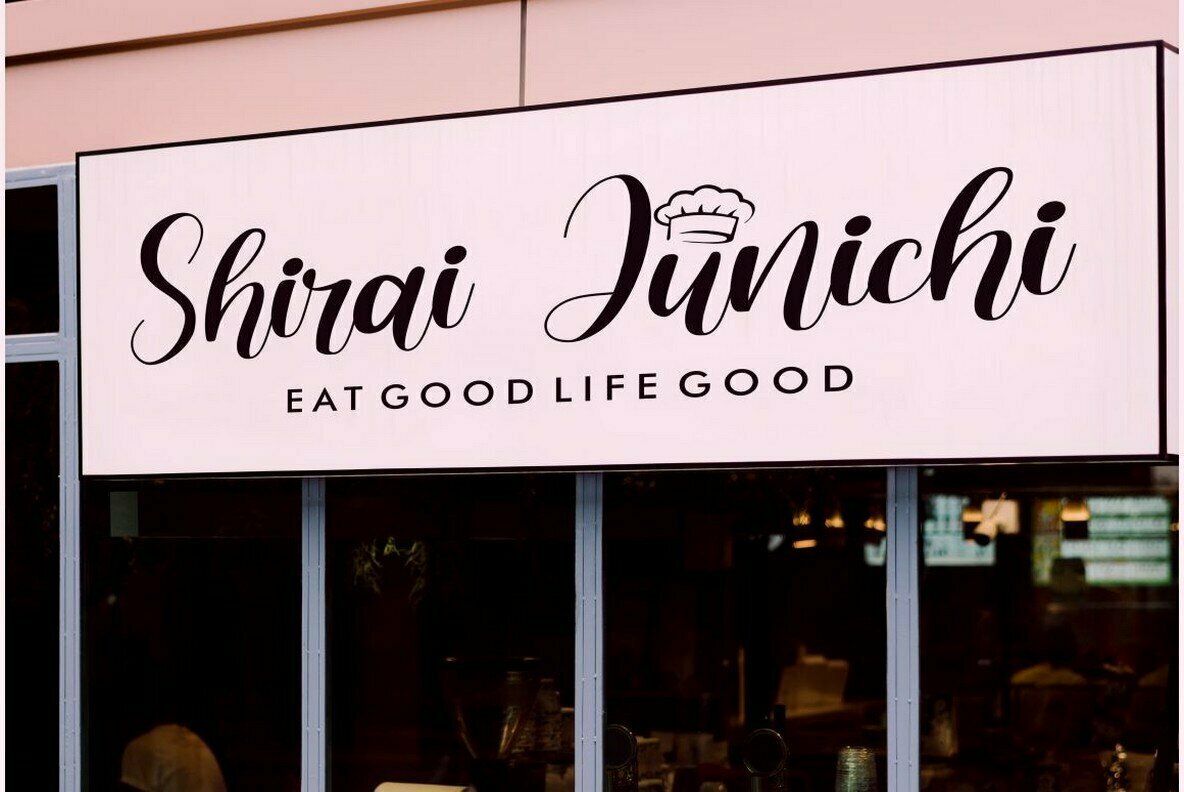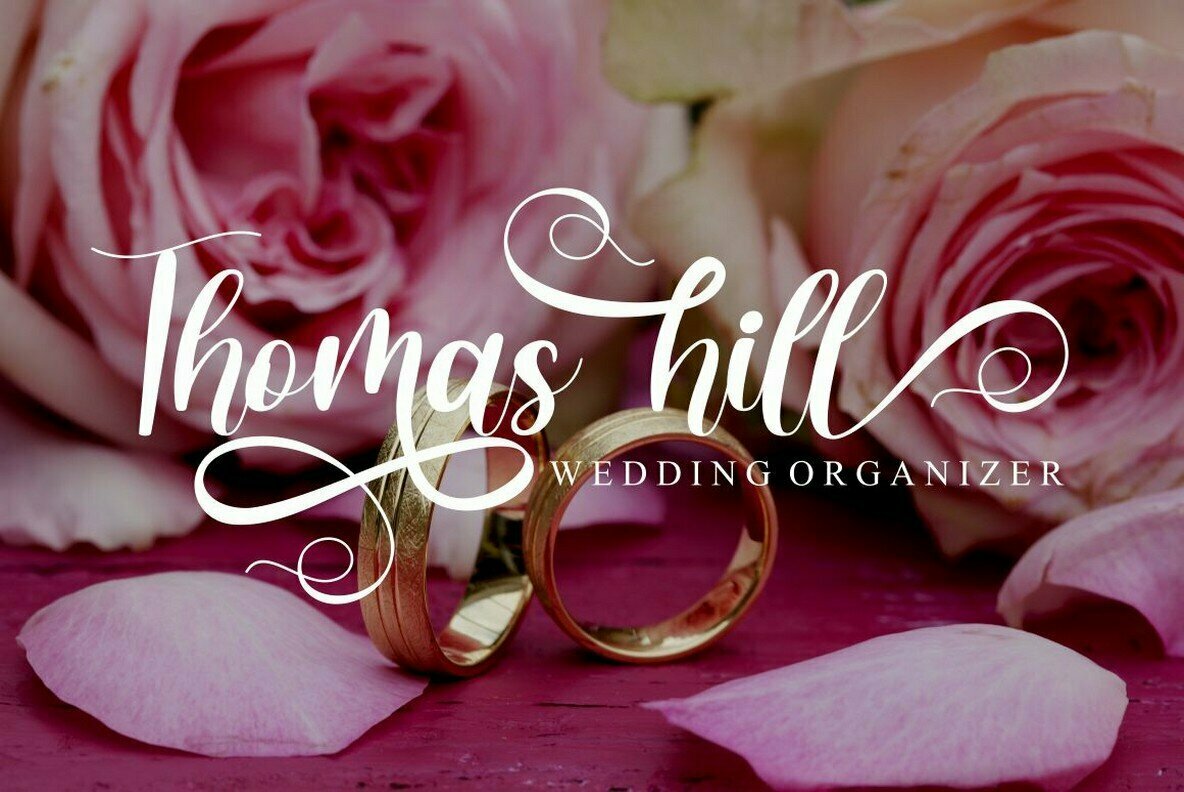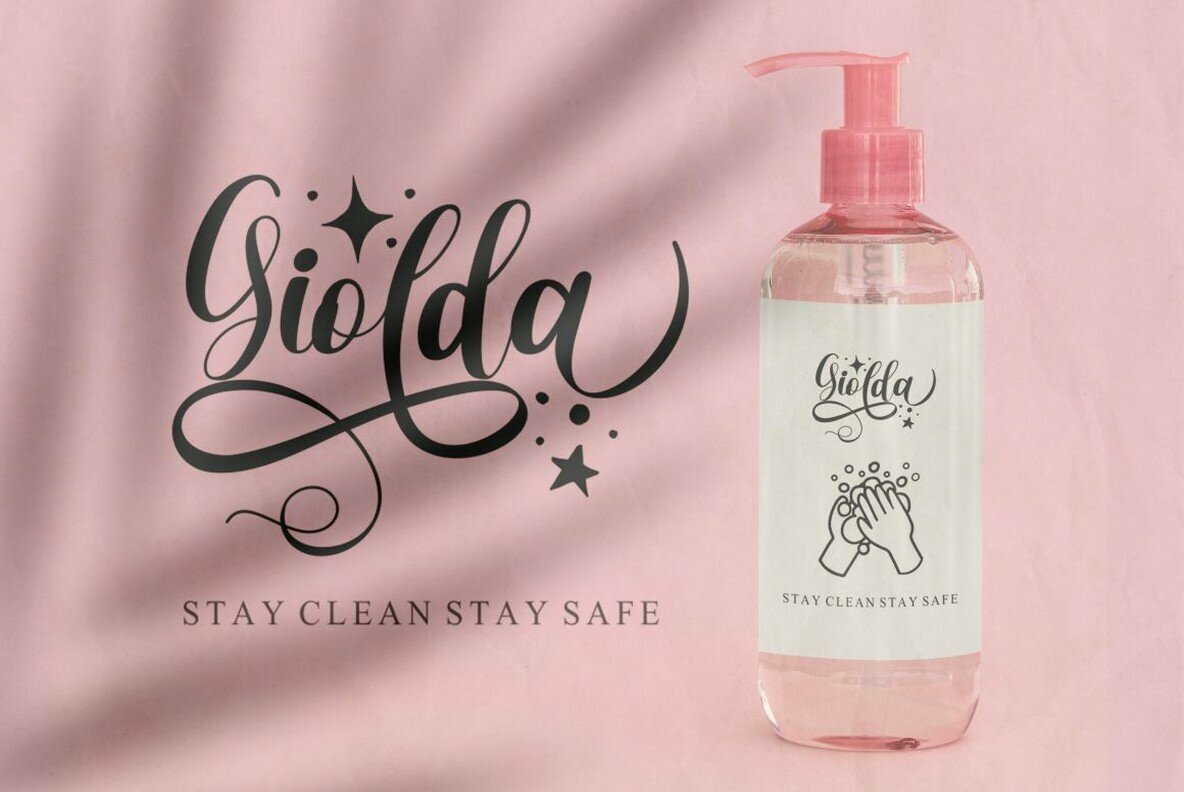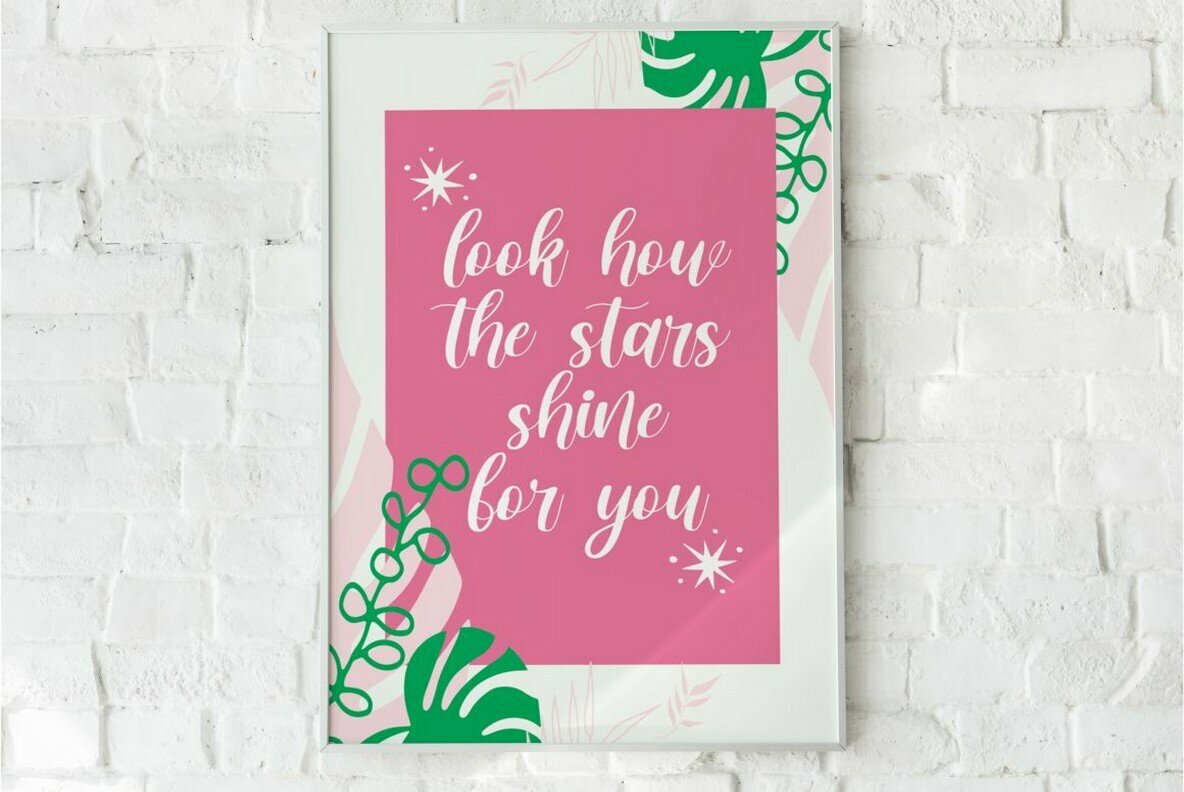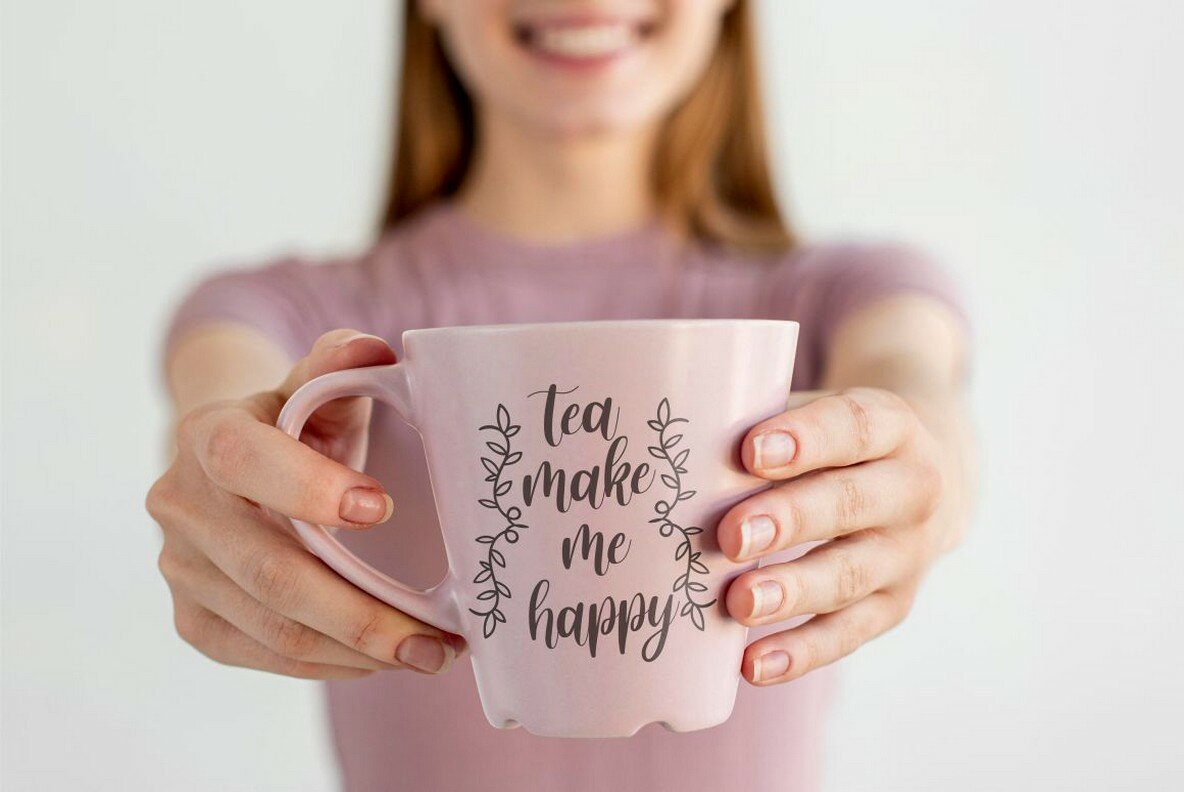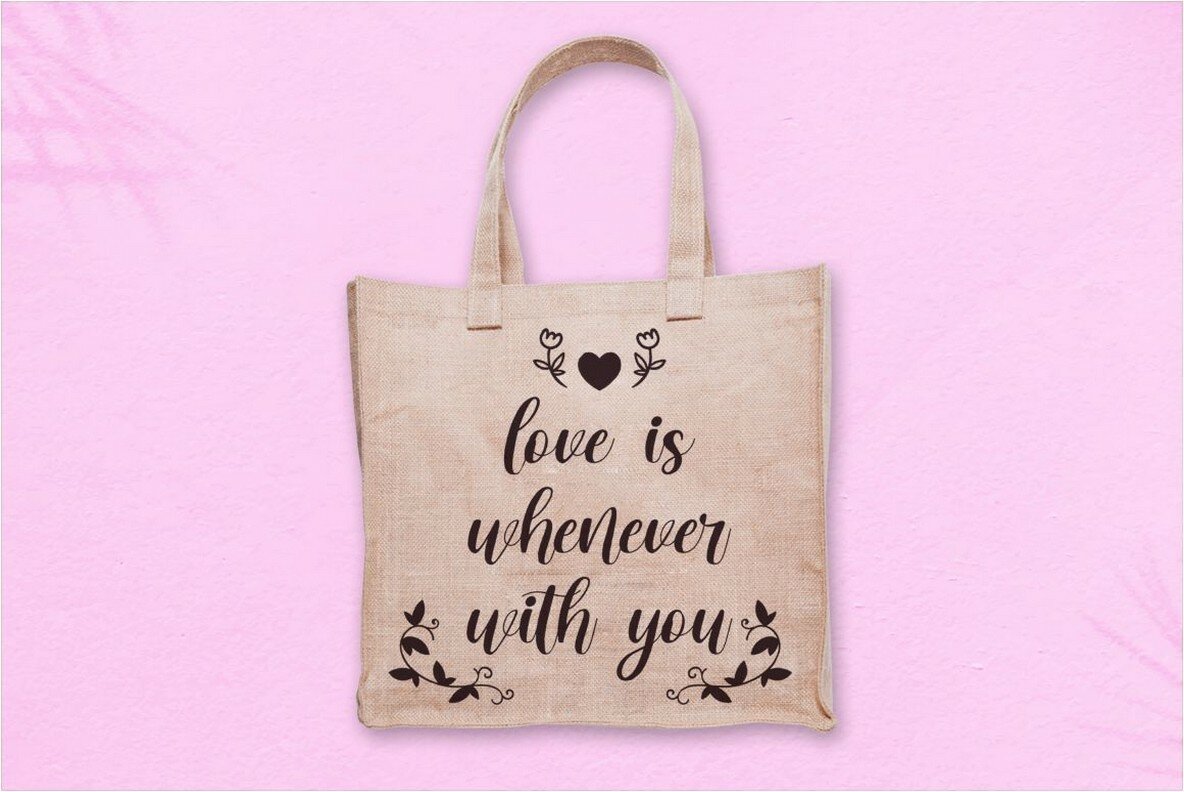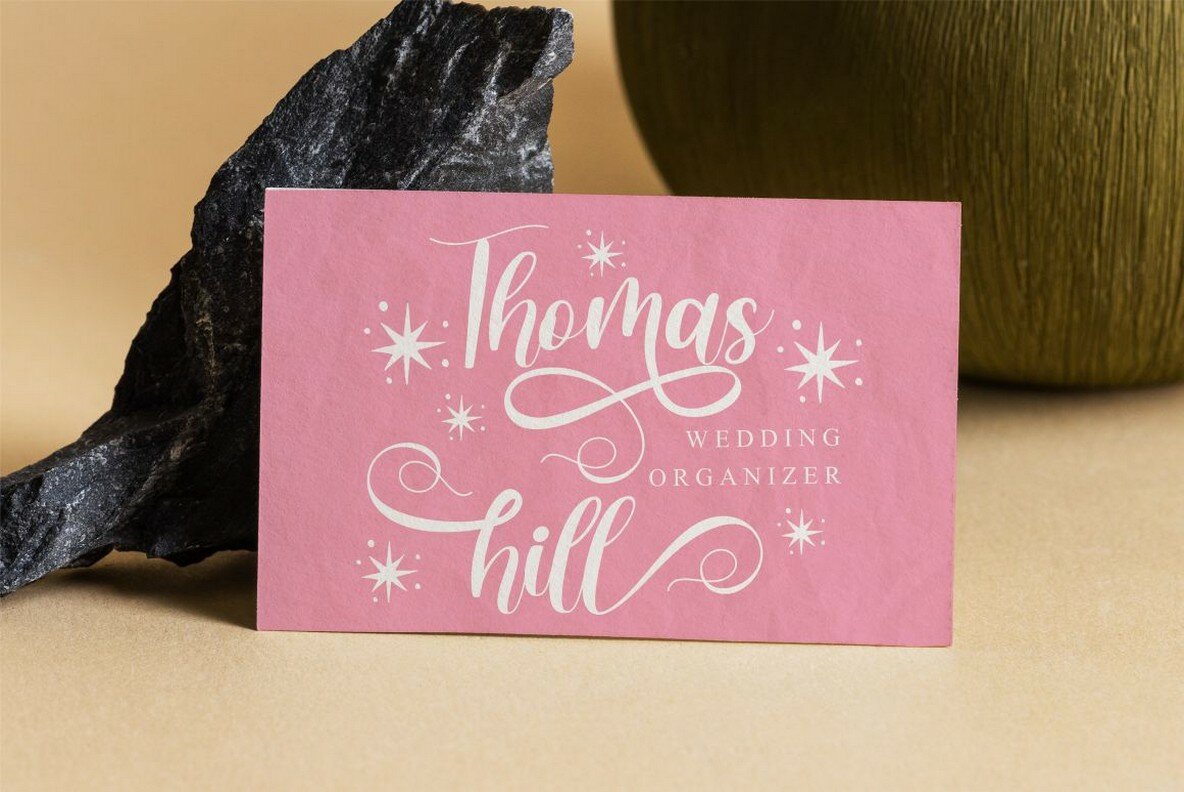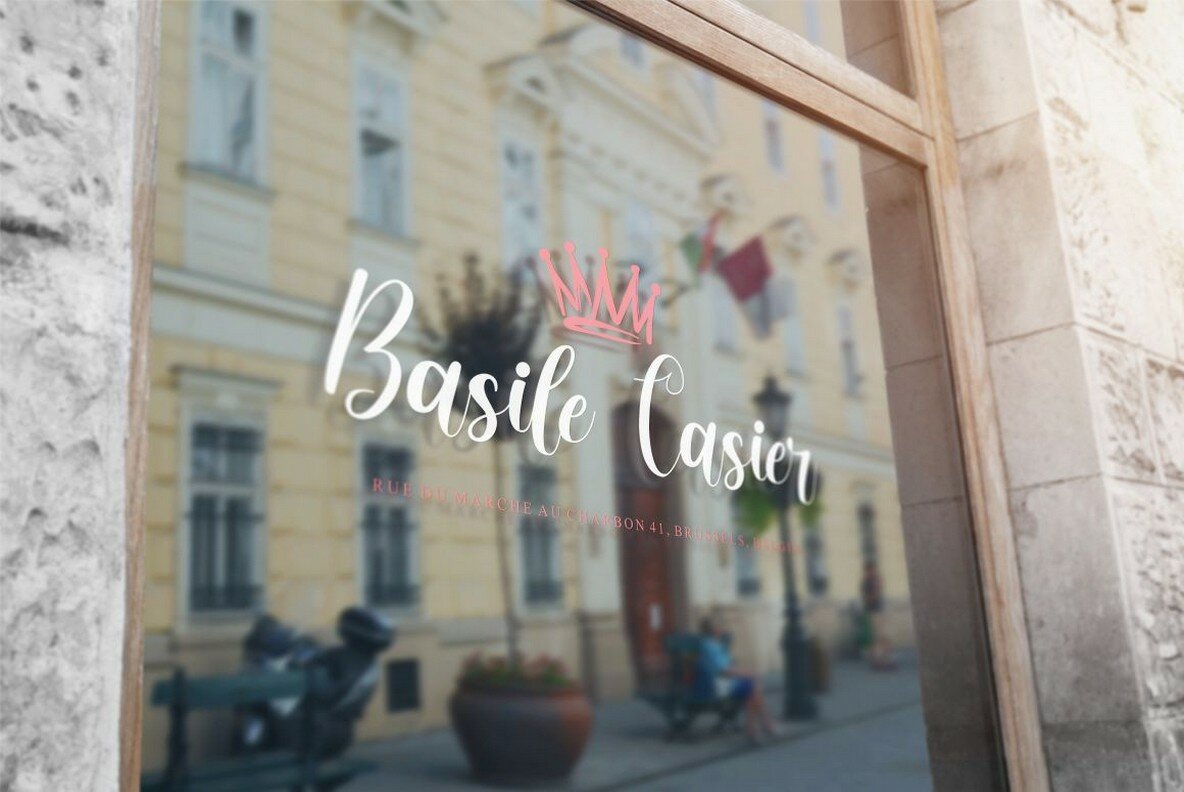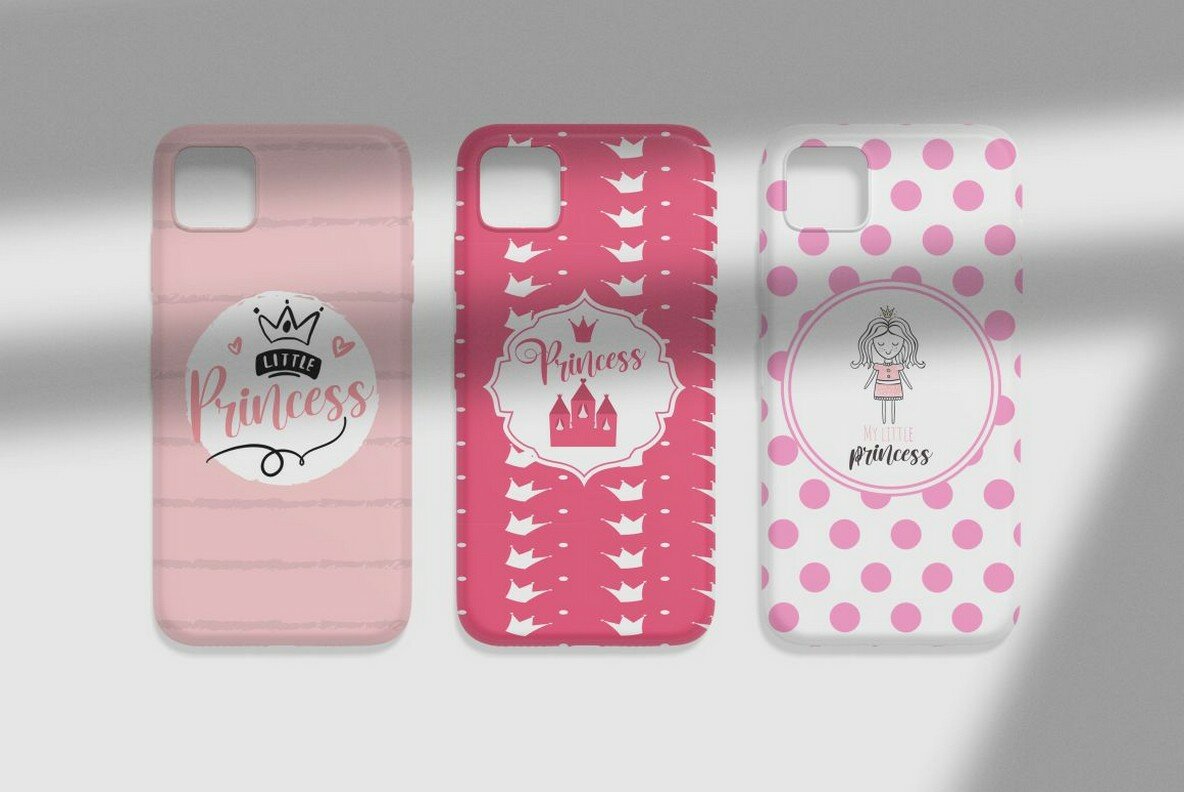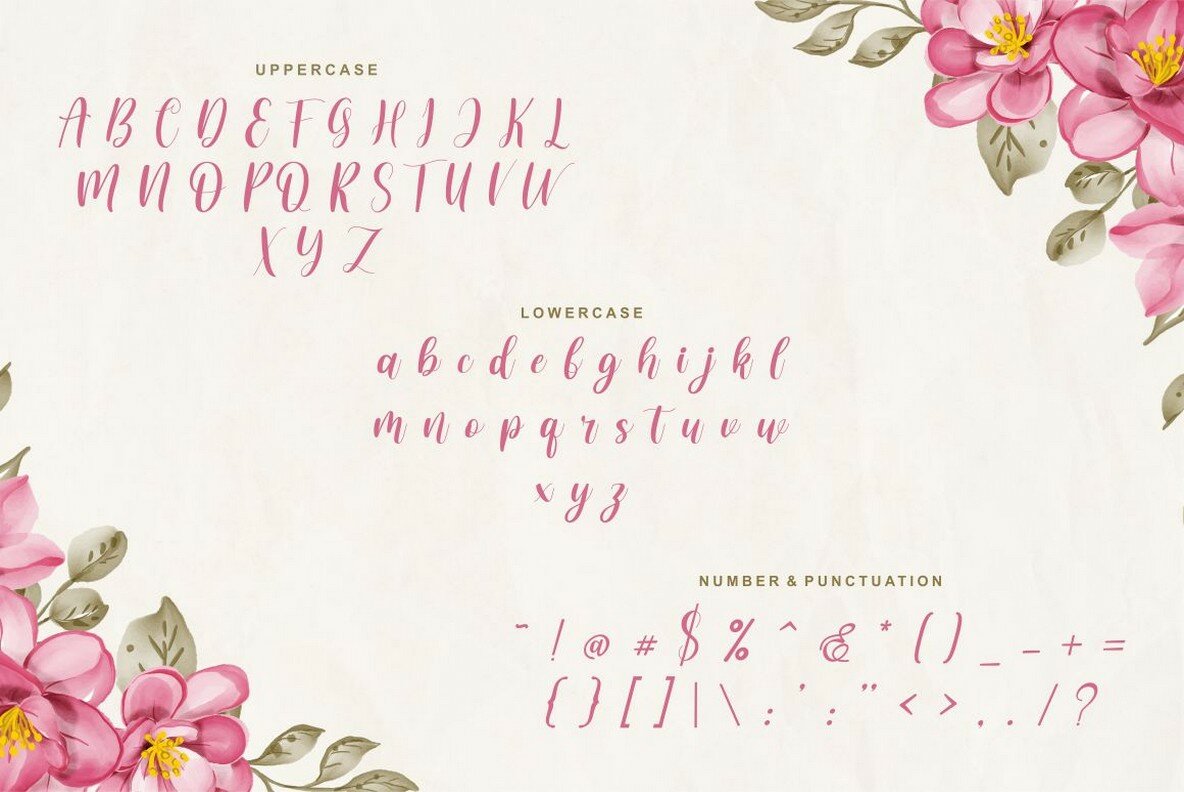
Happiness Couple: A Romantic Script Font
The "Happiness Couple" font exudes elegance with its delicately crafted script style. Designed with a feminine allure, it is an ideal choice for projects demanding a romantic and graceful touch. Whether crafting wedding invitations, designing greeting cards, or creating attractive logos, this font brings a charming sophistication to each endeavor
• Uppercase and Lowercase – Provides stylistic variety.
• Opentype Features – Includes alternates and ligatures for custom designs.
• Comprehensive Characters – Covers numbers, punctuation, and symbols.
• Multilanguage Support – Ensures global accessibility.